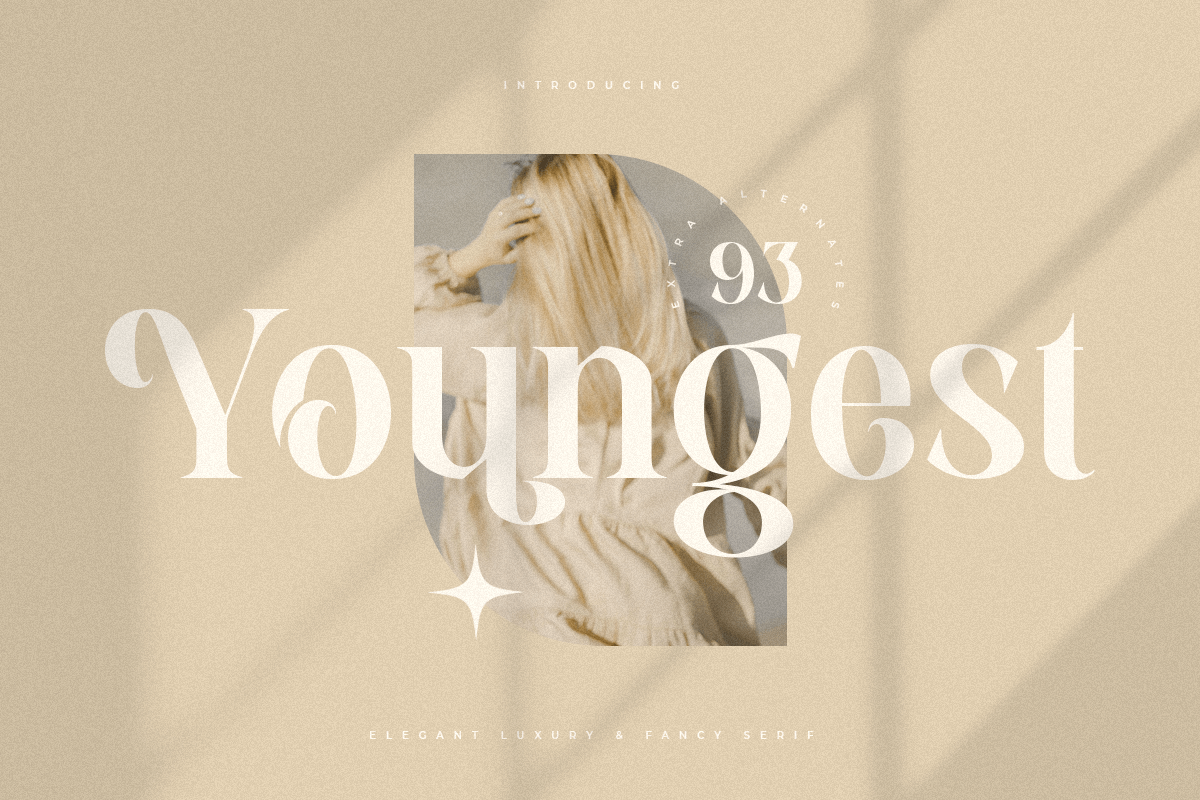
Youngest
-Elegant Luxury Fancy Serif
Youngest
An Elegant Luxury Fancy Serif font that we created special for unique branding needs, with classy shape will be ready to add value of your brand. It so nice to leverage designer or product owner that need solutions to make their design look more standout and modern. And specially for this font, We prepared any characters to help you create unlimited variations for your creative needs.